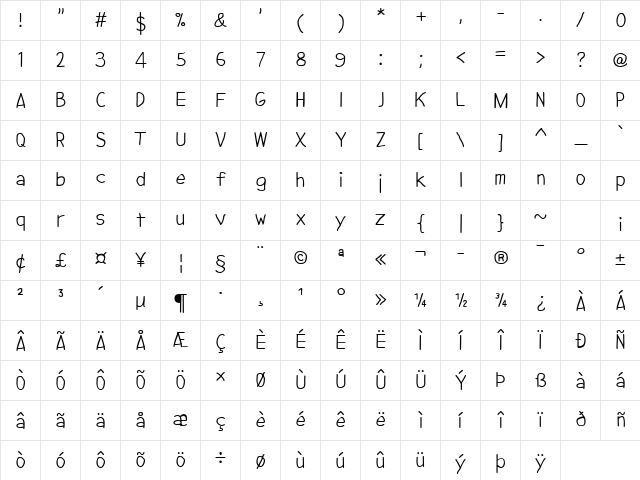
NipCen's Print Unicode Regular
Design Context for NipCen's Print Unicode Typeface
NipCen's Print Unicode brings the precise, column-aligned rhythm of monospaced typography to designs that value technical clarity and systematic order.
Well-suited to data-driven dashboards, coding tutorials, and any design that wants to reference the world of programming.
Pro Tip: Use NipCen's Print Unicode with slightly increased line-height for extended reading — fixed-width spacing can feel dense in longer passages without extra breathing room.